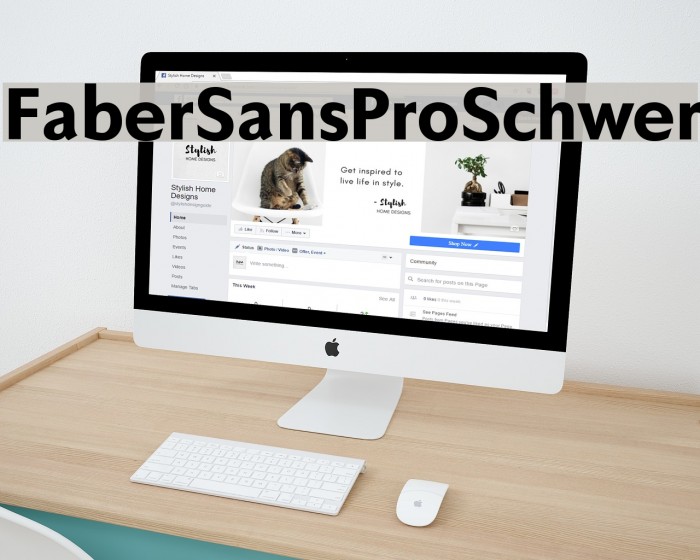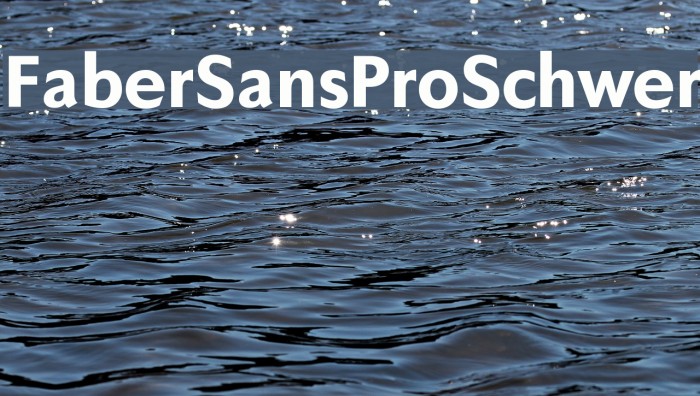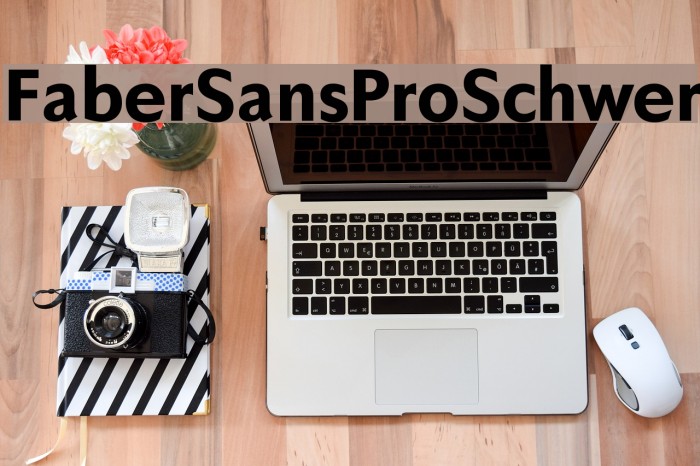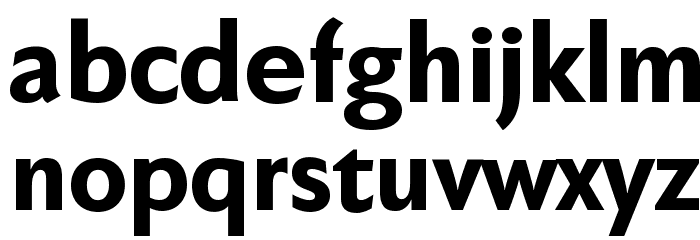
FaberSansPro-Schwer Font
This typeface features a clean and modern sans-serif design with bold, uniform strokes that provide a strong visual impact. The characters are well-proportioned, with a consistent weight that enhances readability. The uppercase letters are slightly taller than average, giving them a commanding presence, while the lowercase letters maintain a balanced and approachable look. The numerals are clear and distinct, making them suitable for various applications. The special characters are well-integrated, ensuring versatility in design projects.
A bold, modern sans-serif font with strong, uniform strokes and excellent readability.
• Proposed Projects: Ideal for branding, advertising, headlines, and digital content where a modern and impactful look is desired.
• Category: Sans-Serif
• Bold: Yes
• Italic: No
• Weight: Bold
• Width: Normal
• Character Spacing: Normal
• Contrast: Low
• Overall Style: Modern
• Use Case: Headlines, Logos, Branding